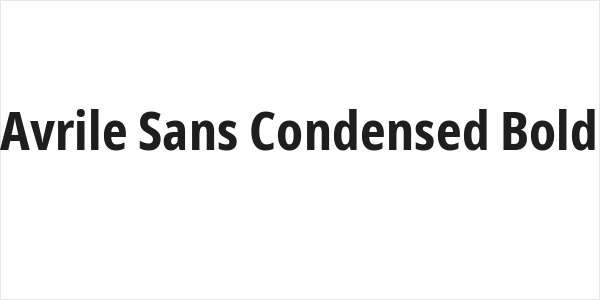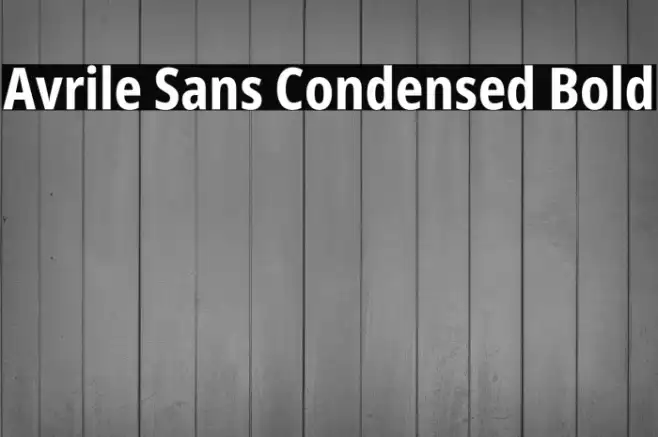
Avrile Sans Condensed Bold Font
Avrile Sans Condensed Bold Description
This typeface is a bold, sans-serif font with a condensed width, offering a modern and clean appearance. The characters are uniformly thick, providing a strong visual impact. The uppercase and lowercase letters are well-proportioned, with a consistent stroke weight that enhances readability. The numbers and special characters maintain the same boldness, ensuring uniformity across all text elements. The font's design is straightforward, making it suitable for a variety of applications where clarity and emphasis are required.
| Proposed Projects | Ideal for headlines, posters, branding, and advertising where a strong, impactful presence is needed. |